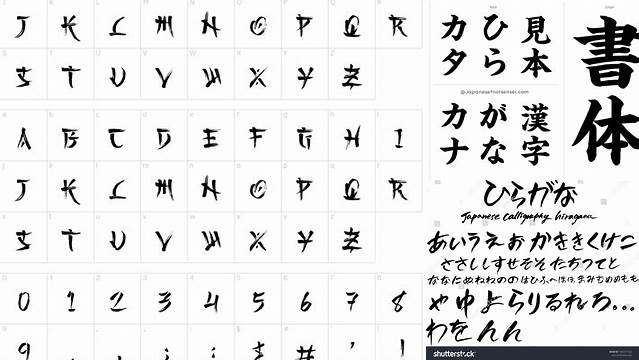
Free Japanese Calligraphy Font Generators: Your Artistic Guide
Are you fascinated by the art of Japanese calligraphy, or shodo? Do you dream of creating elegant characters, but lack the skills or tools? Well, guys, you're in luck! This article delves into the world of Japanese calligraphy font generators, particularly the free options available, and equips you with the knowledge to transform your digital text into stunning artistic expressions. We'll explore what makes these generators tick, how to use them effectively, and what considerations to keep in mind when choosing the perfect font for your needs. So, let's dive in and unlock the beauty of Japanese calligraphy!
What is a Japanese Calligraphy Font Generator?
Let's start with the basics, shall we? A Japanese calligraphy font generator is essentially a digital tool designed to transform standard text into a style that mimics the strokes and aesthetics of traditional shodo. Think of it as a virtual brush and ink, allowing you to experiment with various calligraphy styles without the mess (or the years of practice!) Typically, these generators offer a range of font options, each emulating a different calligraphy style – from the bold, expressive gyosho (semi-cursive script) to the more formal and refined kaisho (block script). Some generators even allow you to customize aspects like stroke thickness, spacing, and even the slant of the characters. This digital magic is made possible by meticulously designed fonts that capture the essence of brushstrokes, the fluidity of ink, and the inherent artistry of Japanese calligraphy. The best part? Many of these tools are available for free, making the art form accessible to everyone, from seasoned artists to curious beginners. So, if you're looking to add an authentic Japanese touch to your designs, documents, or social media posts, a calligraphy font generator is an excellent place to start. You'll be amazed at the possibilities, even with the free options available!
Think about it: you can create visually stunning invitations, posters, logos, or even personalized messages with the unique charm of Japanese calligraphy. The ease of use and the variety of styles ensure that you can find a font that perfectly matches your vision. Japanese calligraphy is not just about writing; it's a form of art. Each stroke carries the artist's emotion and intention, and the resulting characters evoke a sense of harmony, balance, and elegance. While mastering traditional calligraphy requires dedicated practice, these generators allow you to experience the beauty of the art form without the initial learning curve. It is especially helpful for those who want to convey a sense of culture, history, or sophistication in their projects. The ability to quickly generate text in a variety of authentic Japanese calligraphy styles is a massive advantage.
Exploring Free Japanese Calligraphy Font Generators
Alright, now let's get to the fun part: exploring the free Japanese calligraphy font generators! There are many options out there, each with its own strengths and weaknesses. Here's a quick rundown of what to look for and some popular examples.
- Font Variety: The best generators offer a good selection of font styles. Look for options that cover a range of calligraphy scripts, such as kaisho, gyosho, and sosho (cursive script). Variety allows you to match the font to your project's tone and aesthetic. Some generators also offer different versions of each style, like different brush widths or levels of formality.
- Ease of Use: The generator should be user-friendly. A simple interface where you can easily type your text, select a font, and adjust basic settings is crucial. Look for features like the ability to adjust font size, spacing, and alignment.
- Customization Options: While free generators may not offer the extensive customization of paid software, look for options to tweak basic elements, like stroke thickness or character spacing. Even small adjustments can significantly impact the final look.
- Popular Examples: While specific examples change over time, a quick search online will uncover several popular free Japanese calligraphy font generators. Pay attention to user reviews and online tutorials to get a sense of their capabilities and ease of use. Look for generators that offer a balance of style, functionality, and ease of use. Remember, experimentation is key. Try out a few different generators and see which ones work best for your needs and creative style. Don't be afraid to play around with different fonts and settings to find the perfect look for your projects.
Remember to always check the licensing terms for the fonts you use, especially if you intend to use them for commercial purposes. Many free fonts are licensed for personal use only, while others may require attribution. It's always better to be safe than sorry. Overall, exploring these free resources is an excellent way to get started with Japanese calligraphy and discover the beauty of this art form.
How to Use a Japanese Calligraphy Font Generator Effectively
Using a Japanese calligraphy font generator might seem straightforward, but guys, to achieve the best results, a little finesse goes a long way. Here's a breakdown of how to maximize your creative output.
- Choose the Right Font: Selecting the appropriate font is critical. Consider the message you're trying to convey and the overall aesthetic of your project. A formal kaisho font might be ideal for a business card or invitation, while a more expressive gyosho font could be better suited for a personal message or artistic design. Experiment with different fonts until you find the one that best suits your purpose. This is where the variety of options offered by the generator becomes so important.
- Consider the Text: The length and content of your text impact the font choice. Longer texts might look better with a more legible font, whereas shorter phrases or titles can handle more decorative styles. Think about how the font will interact with the overall composition of your design. Is the text a prominent headline or a subtle element?
In conclusion, Japanese calligraphy font generators, especially the free options, are fantastic tools for anyone looking to add a touch of elegance and artistic flair to their digital creations. By understanding the basics, exploring available options, and avoiding common mistakes, you can transform your text into beautiful works of art. So, go forth, experiment, and unleash your inner artist! The world of shodo is waiting for you!